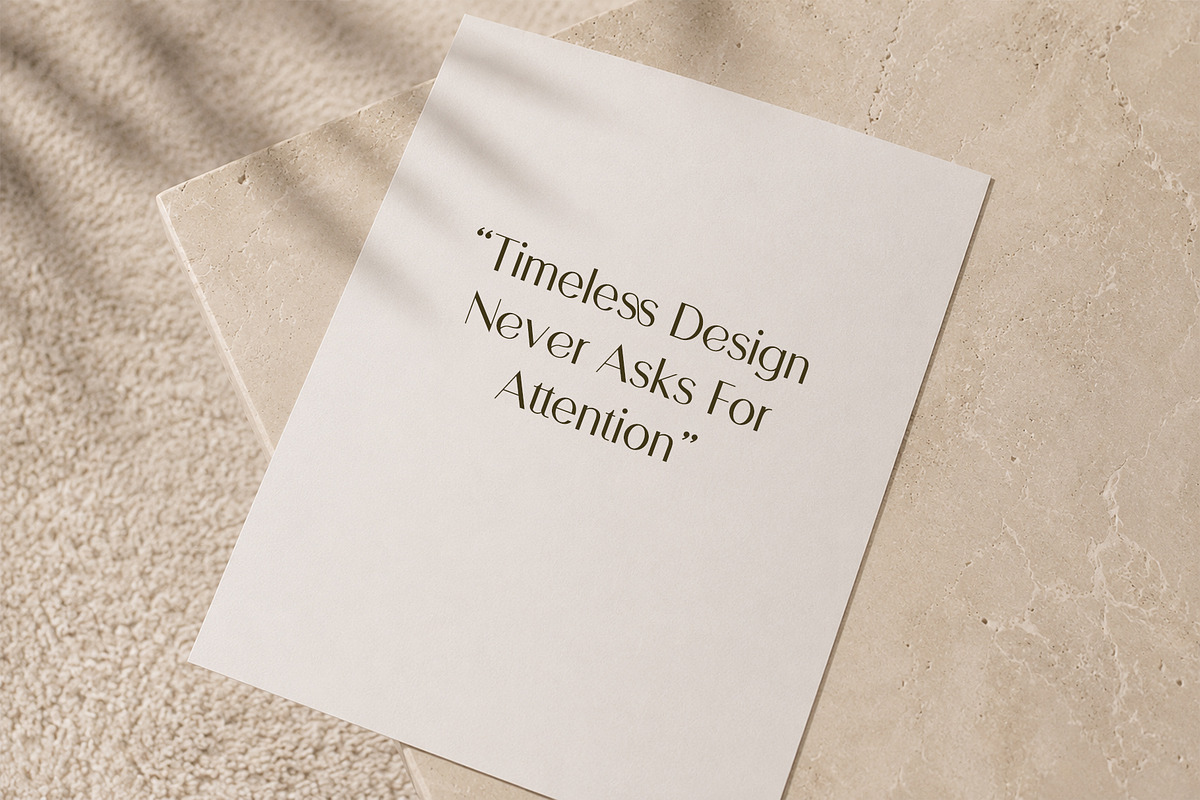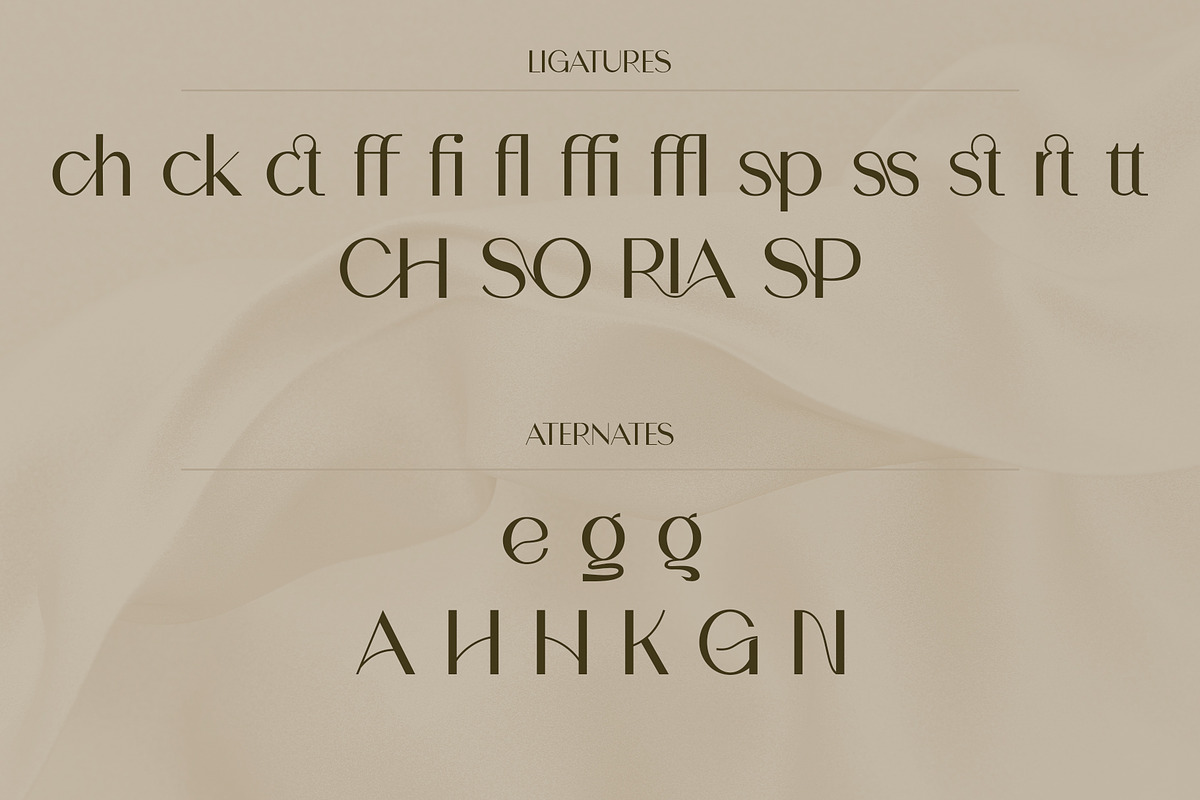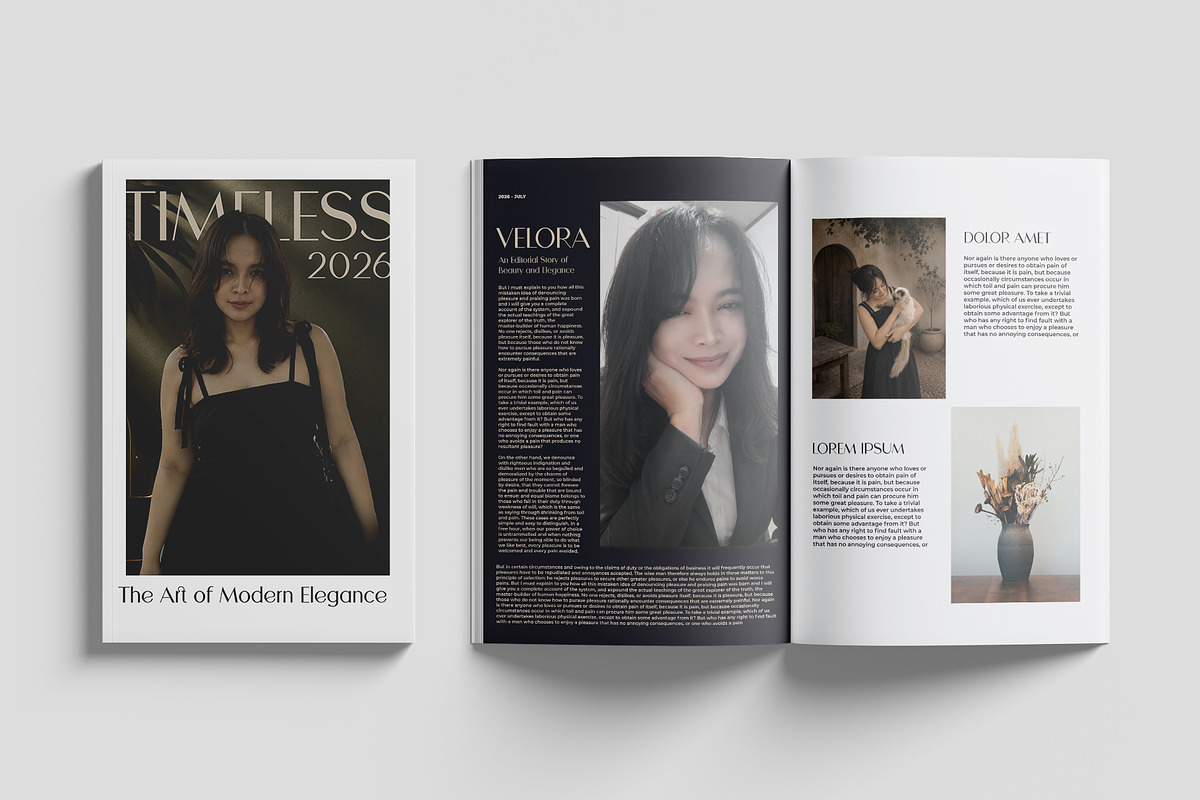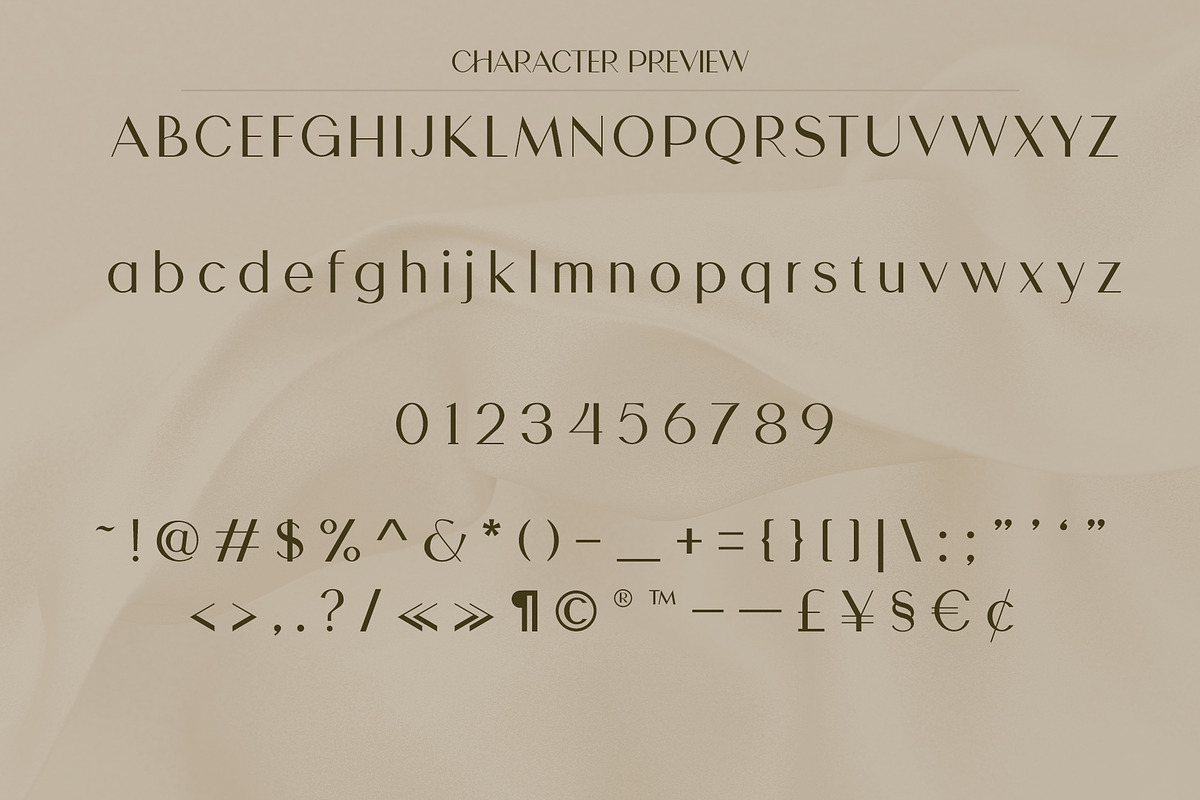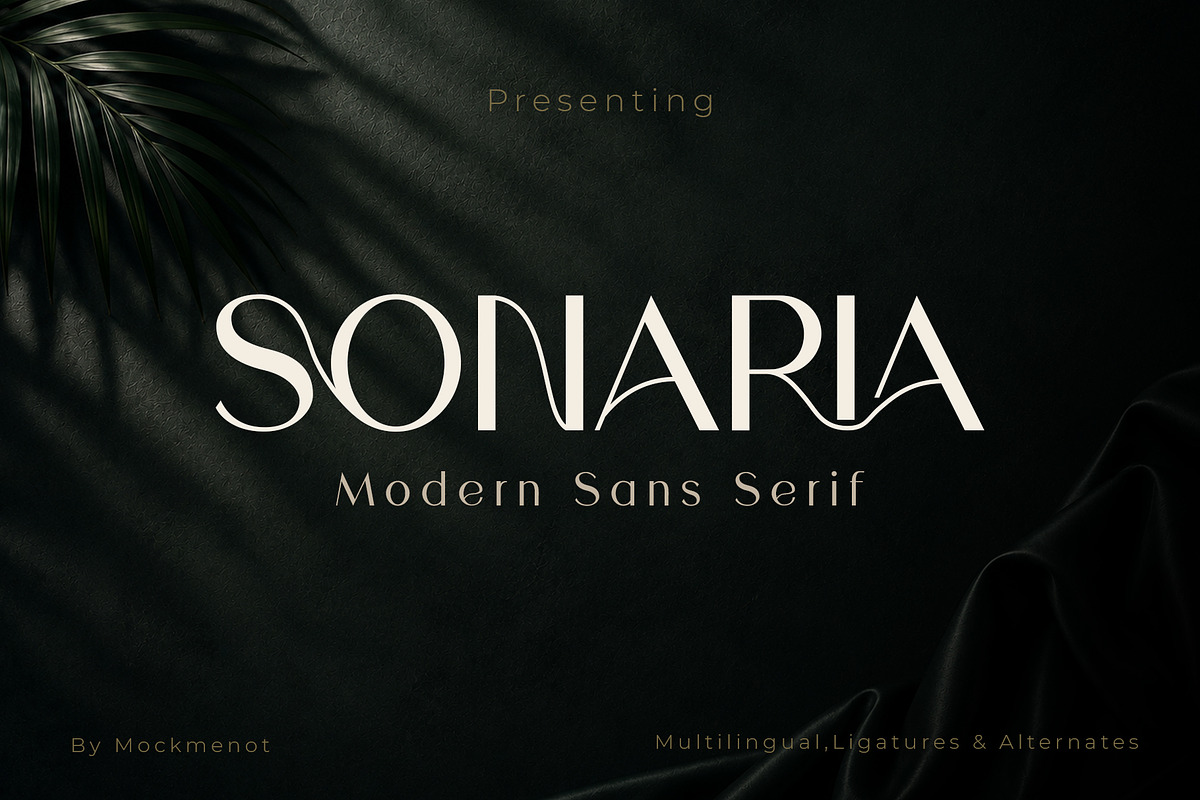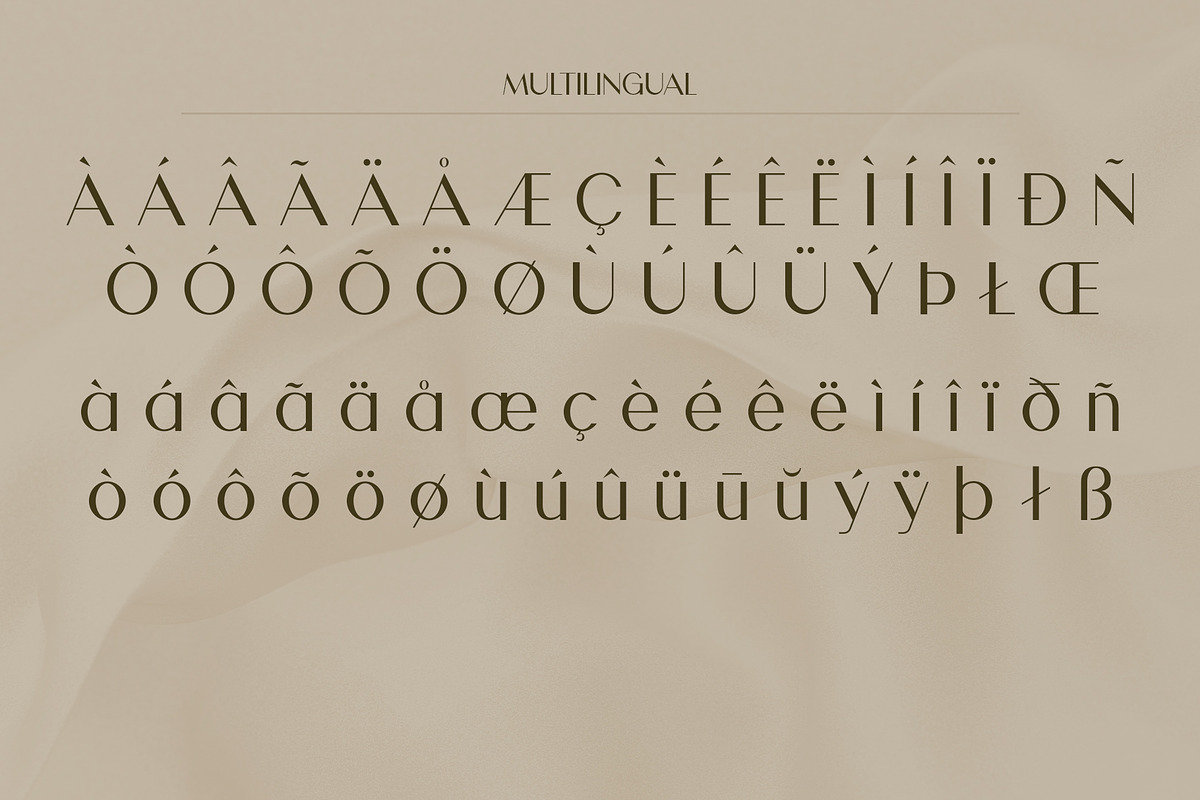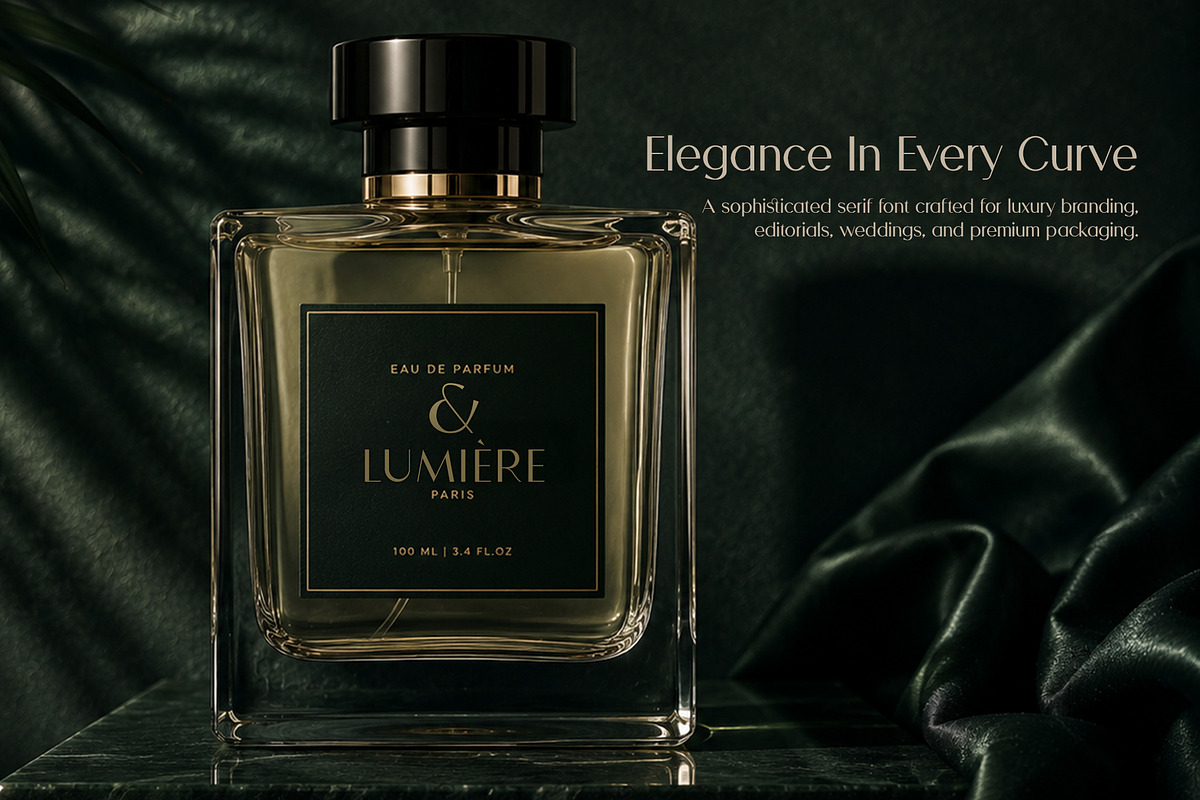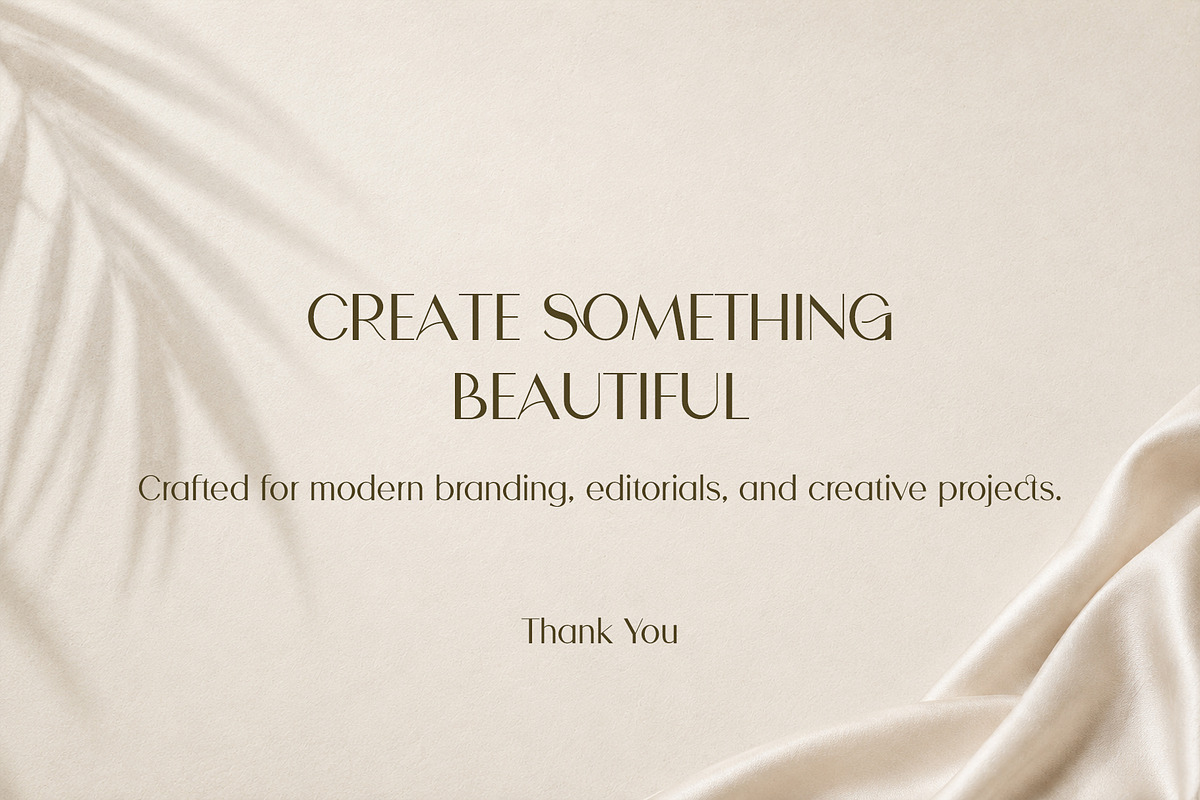
Sonaria - Elegant Modern Sans Serif
Sonaria - Modern Sans Serif Font
Sonaria is a luxury modern sans serif font that combines minimalist structure with elegant artistic details. Carefully designed to achieve a premium and sophisticated appearance, Sonaria features stylish ligatures and alternates that create distinctive and memorable typography.
Perfect for high-end branding and contemporary editorial design, Sonaria performs beautifully in both large headlines and refined visual identities.